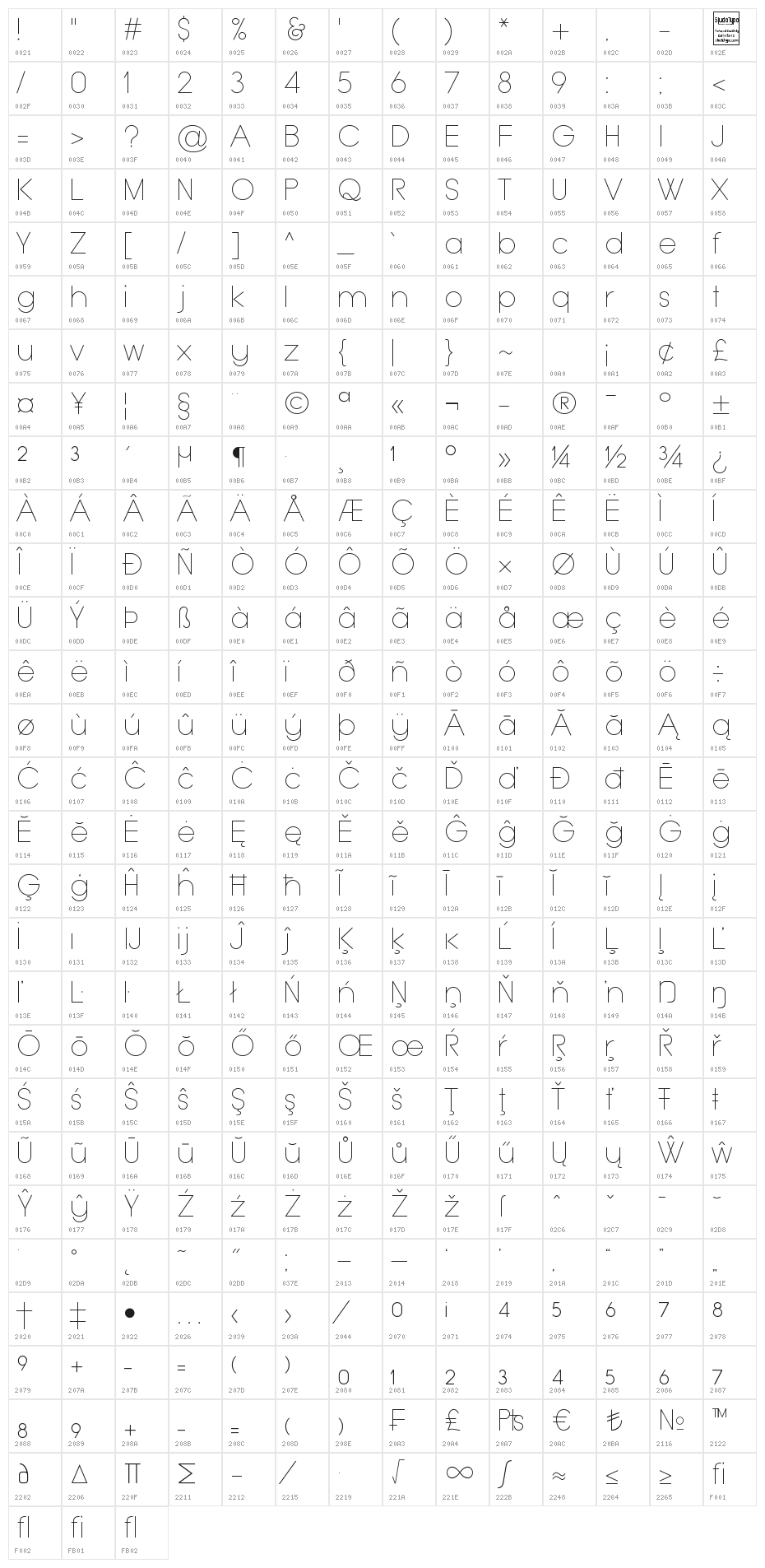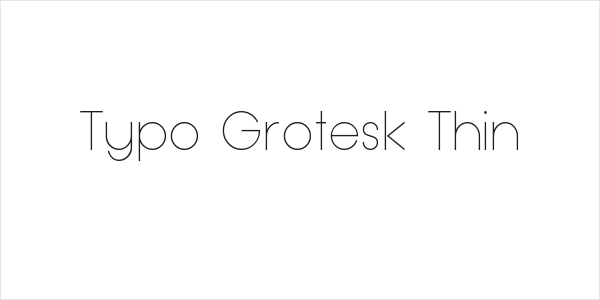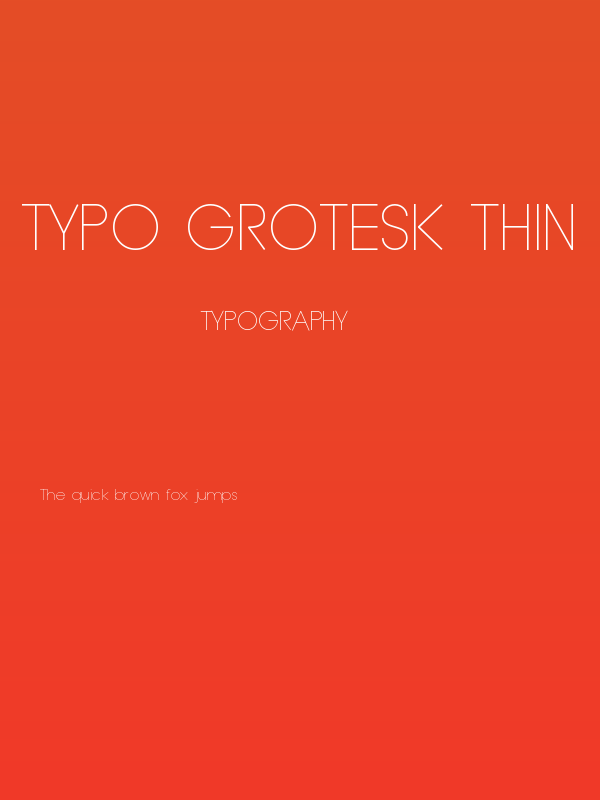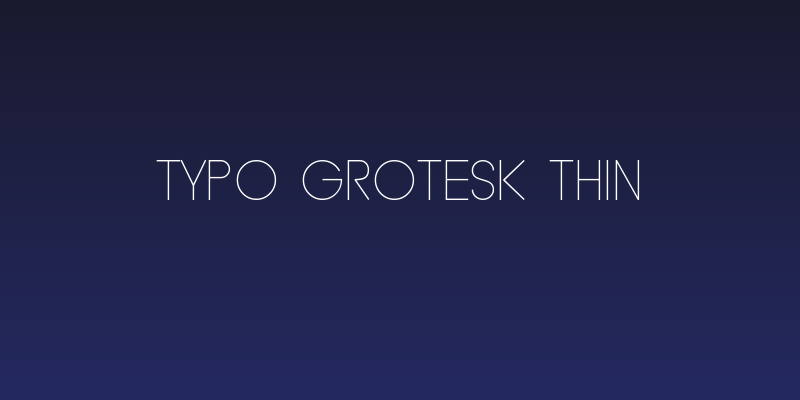
Typo Grotesk Thin Font
Typo Grotesk Thin Description
This font features a clean and minimalist design with thin strokes, creating an airy and modern appearance. The characters are evenly spaced, contributing to a balanced and harmonious look. The uppercase and lowercase letters maintain a consistent style, with smooth curves and straight lines that enhance readability. The numerals are clear and distinct, matching the overall aesthetic of the alphabet. Special characters are included, maintaining the same thin and elegant style. This font is ideal for projects that require a sleek and contemporary feel.
| Proposed Projects | Ideal for branding, editorial design, modern web design, and minimalist posters. |